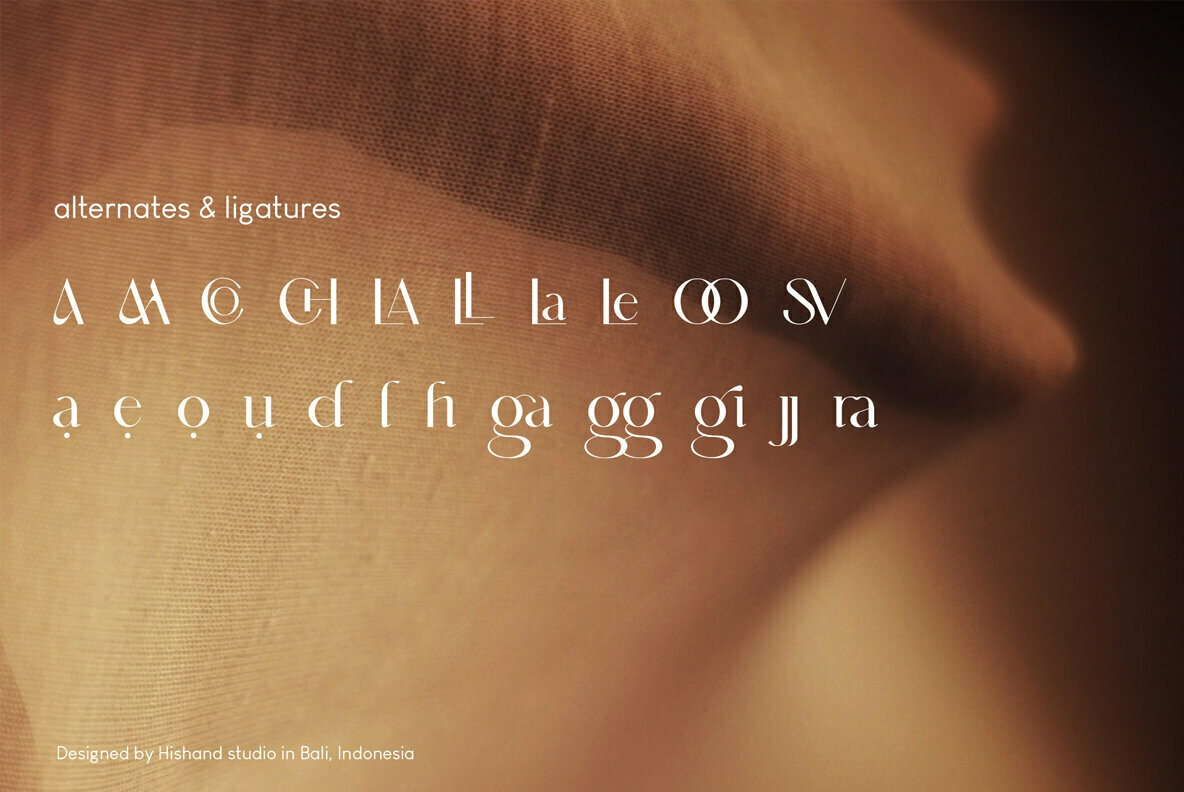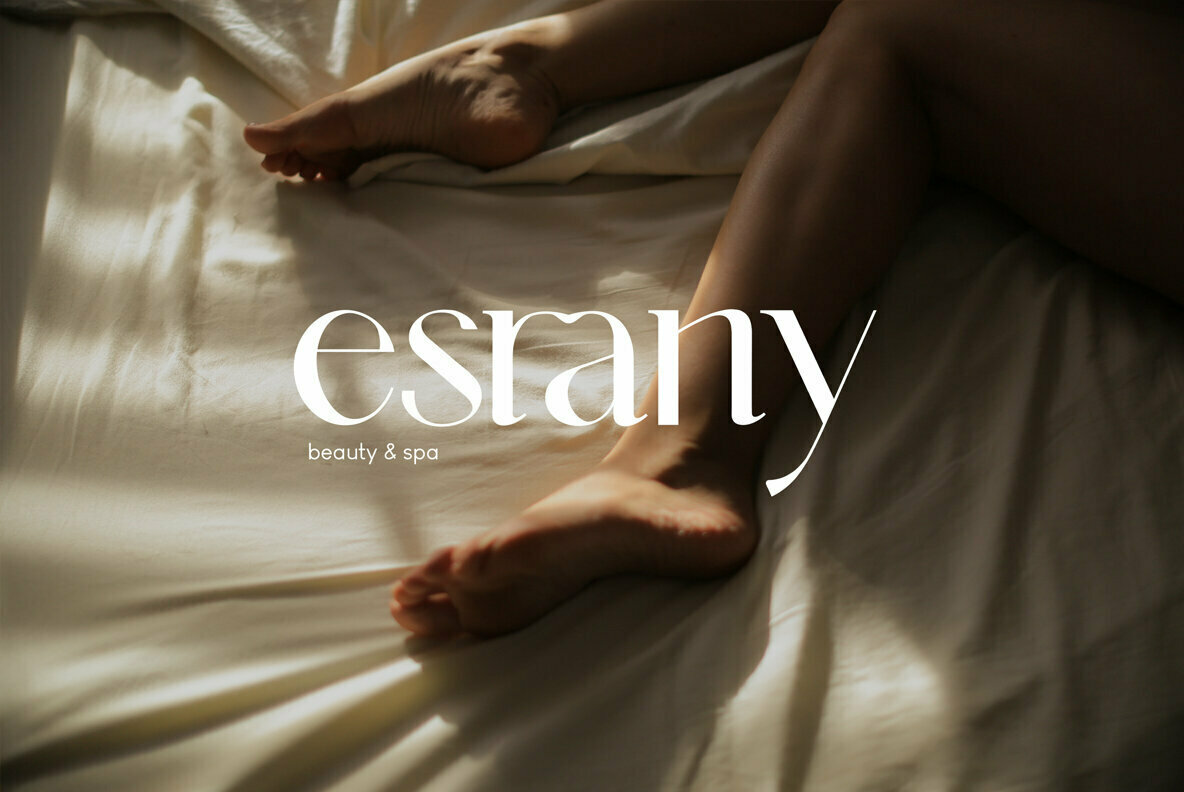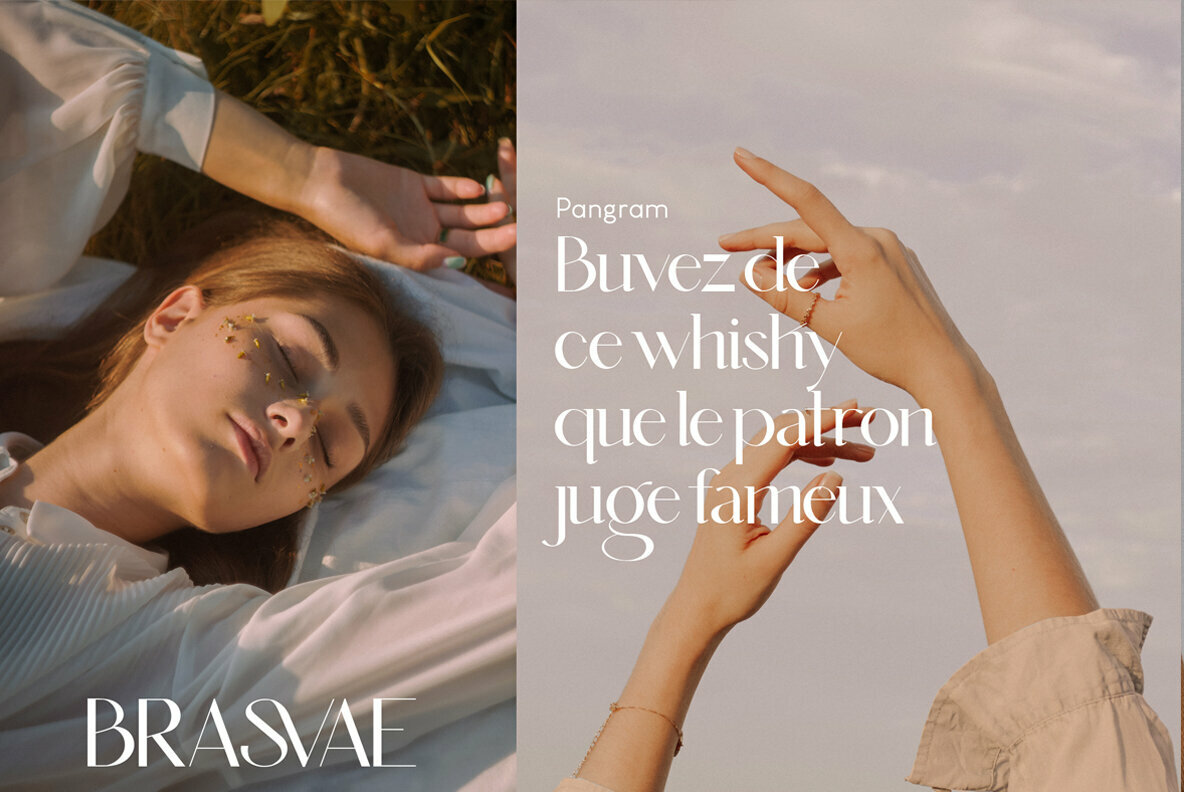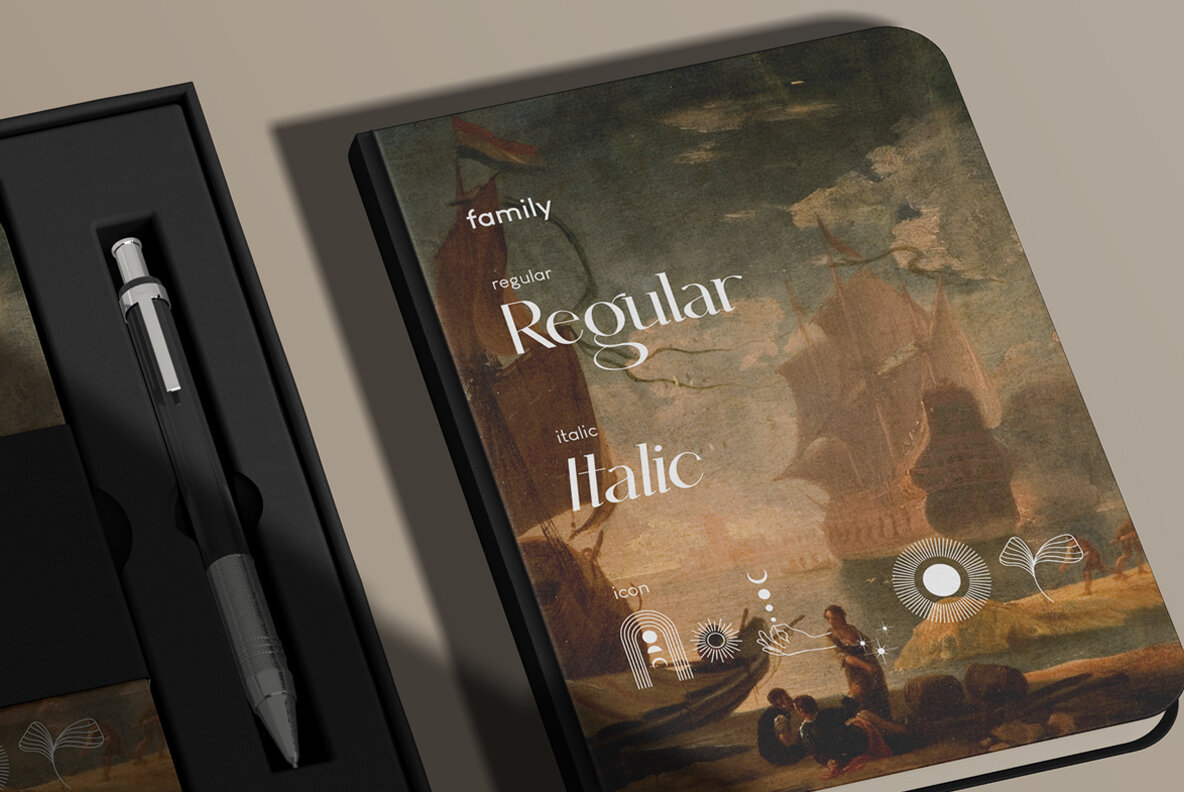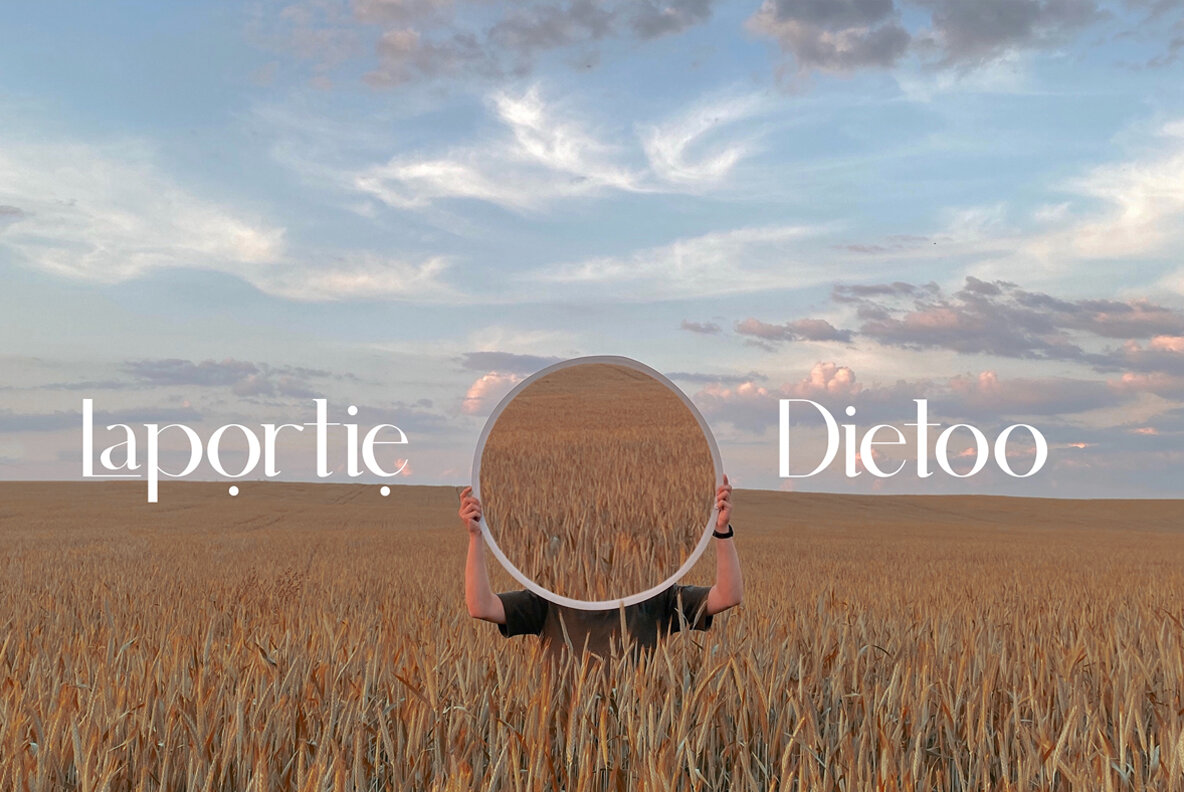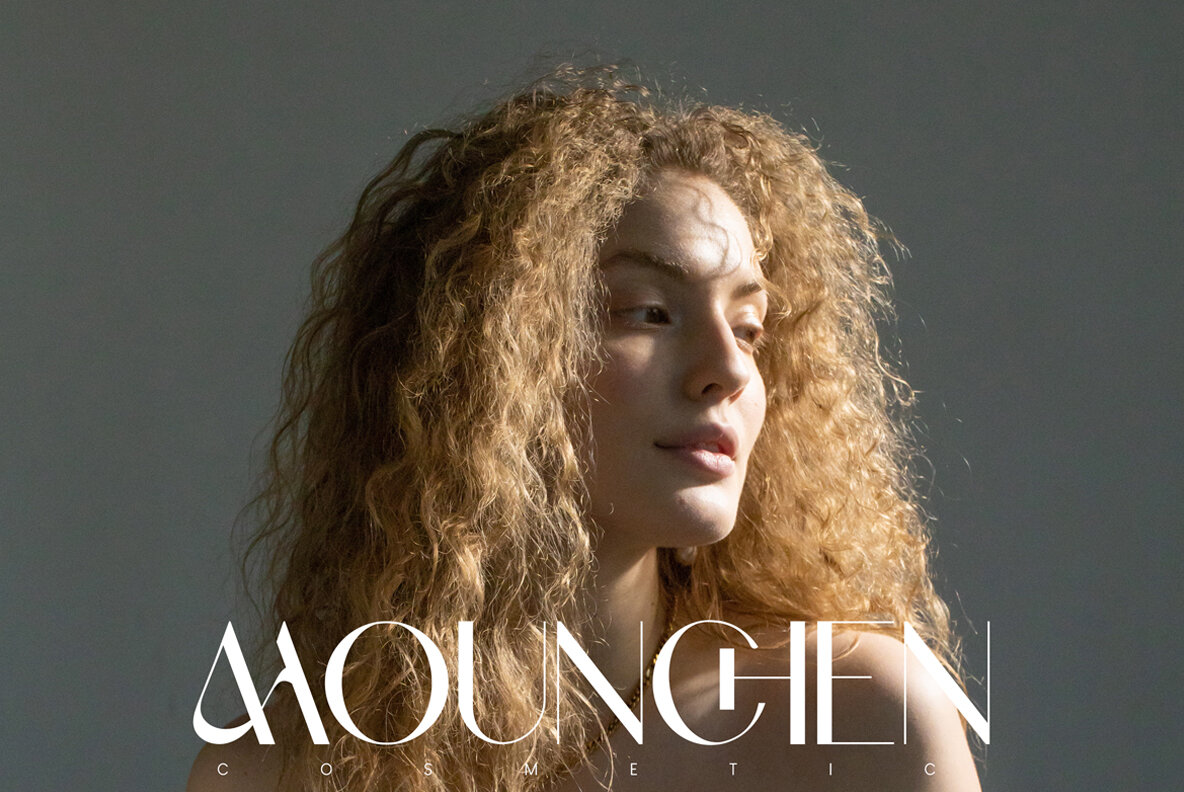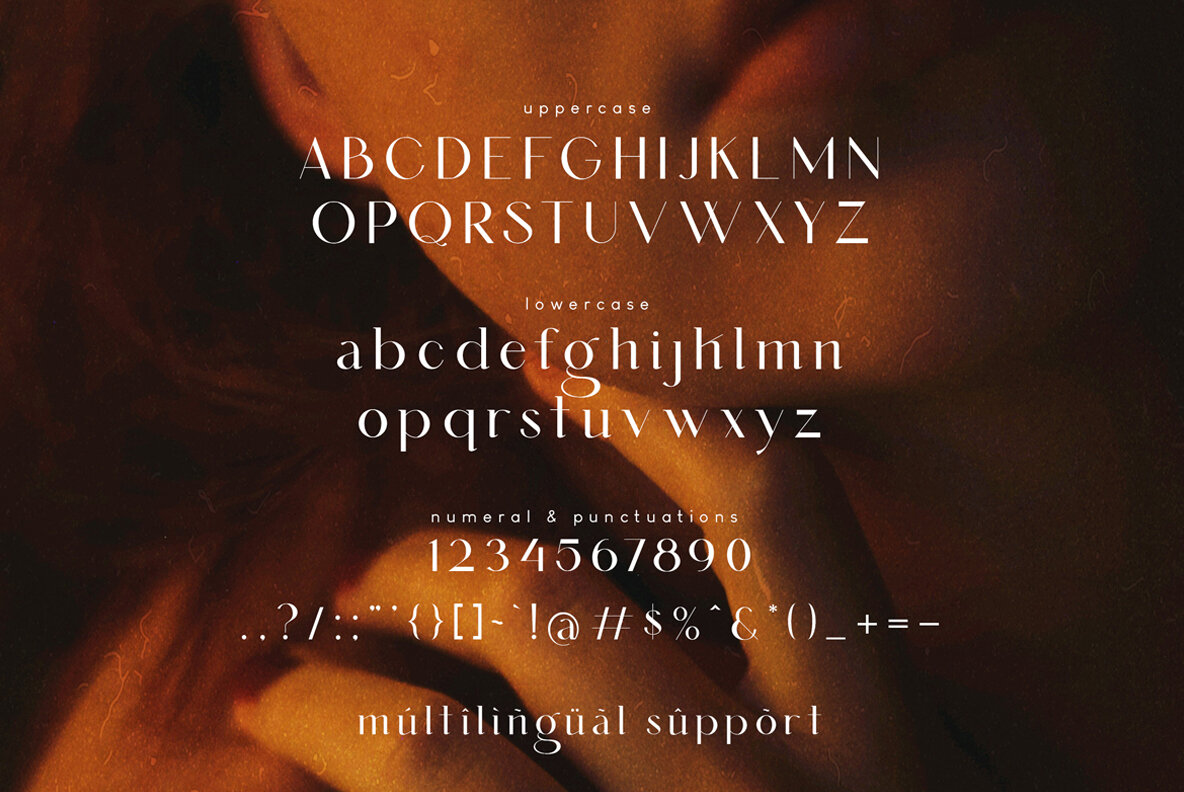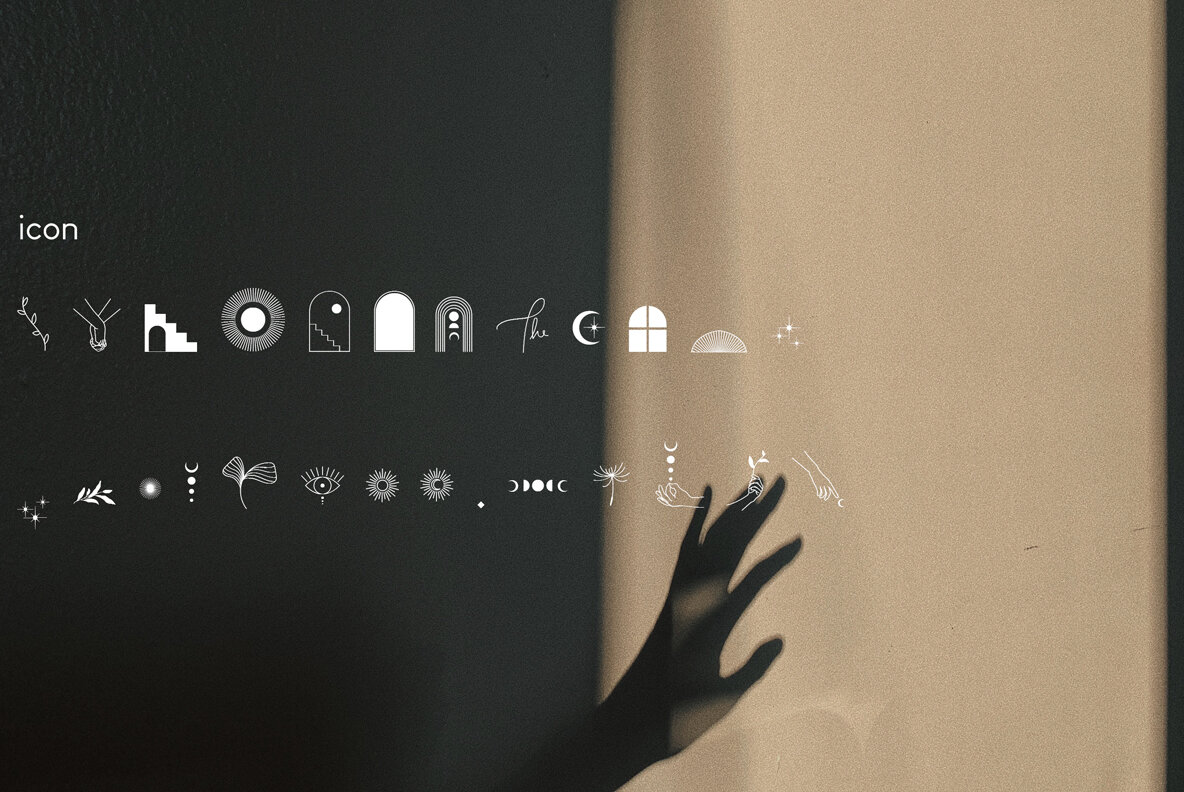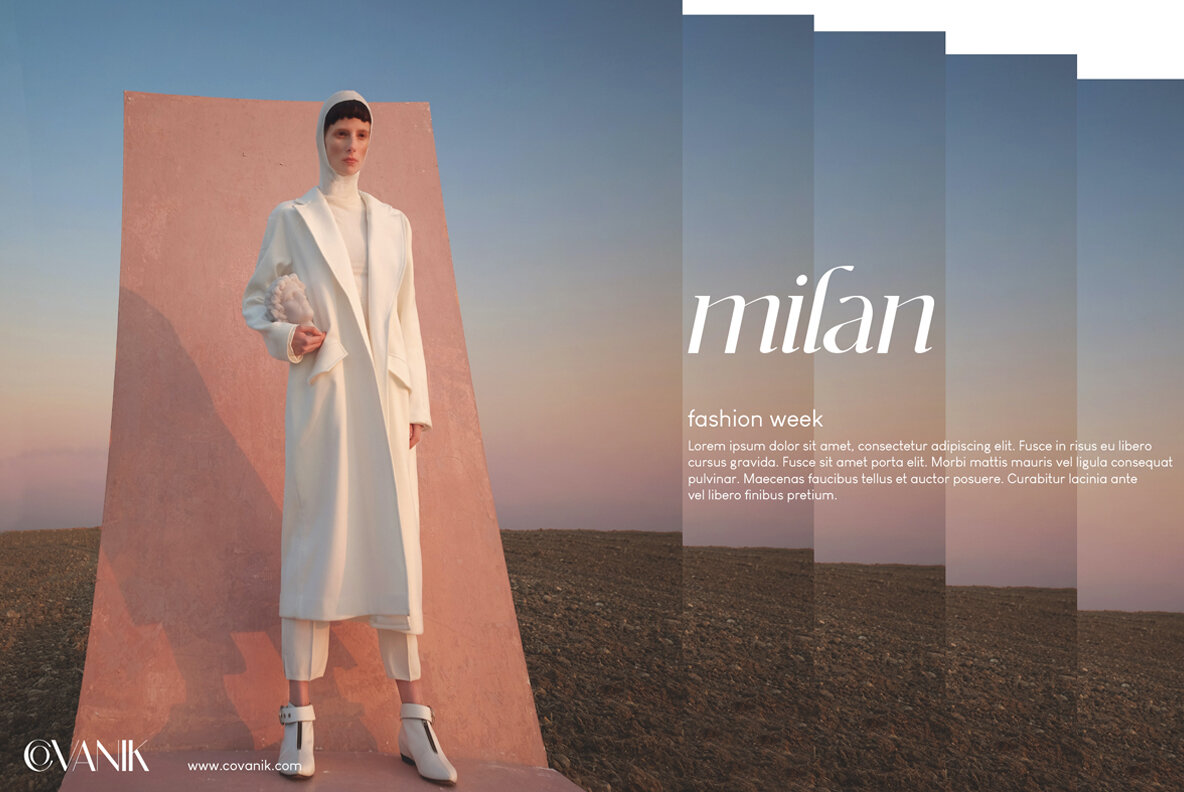
Amelaryas Font
Amelaryas Regular
Amelaryas Italic
Amelaryas Icon
Amelaryas is a beautiful serif font with elegant and premium dimensions that can be used for logos, branding or wedding designs. The weight of the letters gives it an extra touch you might want in your design!